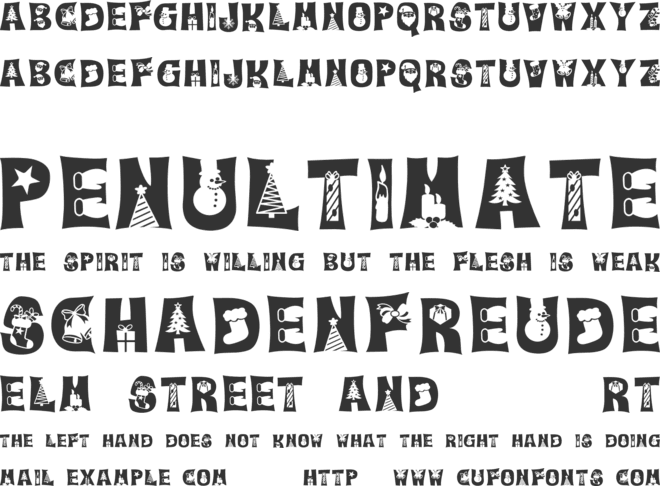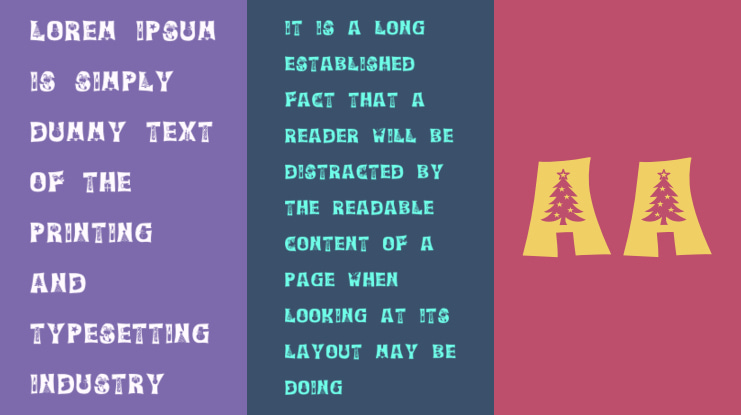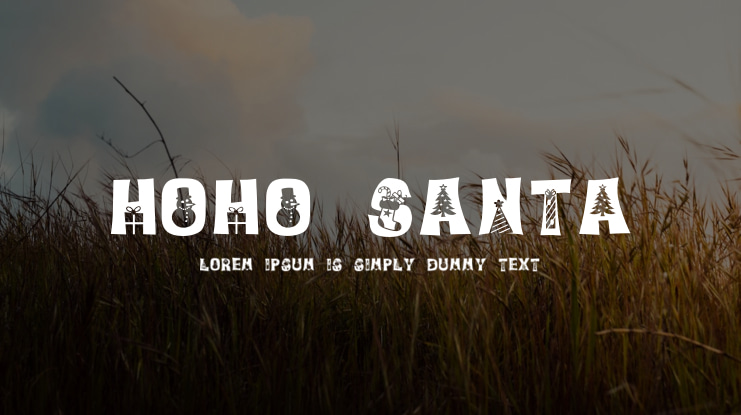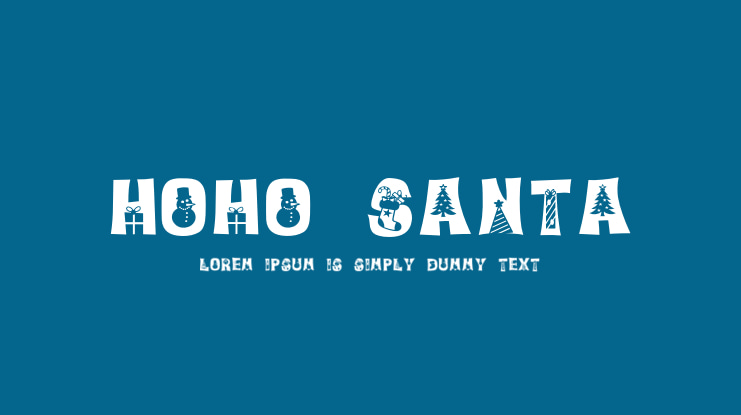
hOHo SANTa Font
A funny, festive font, because it's that time of the year again!
Hoho Santa supports most Latin-derived languages, as well as Greek and Cyrillic.